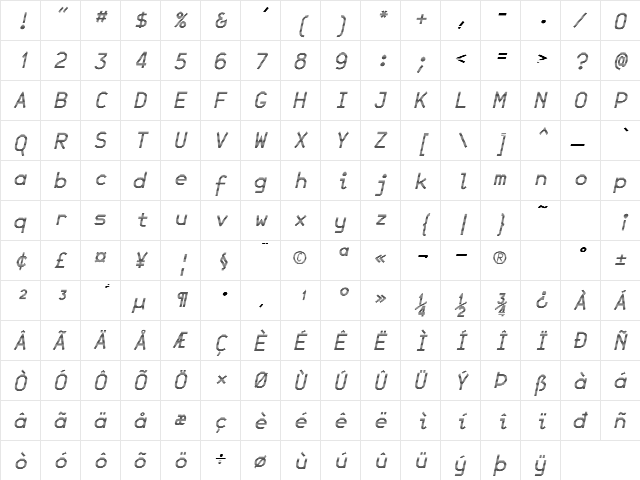
JetJanBoldItalicGray Regular
Design Context for JetJanBoldItalicGray Typeface
JetJanBoldItalicGray offers clean, dependable letterforms without strong stylistic allegiance, making it a practical choice for designers who need flexibility. The slanted form adds forward momentum and visual energy. Its bold stroke weight gives it real presence on the page.